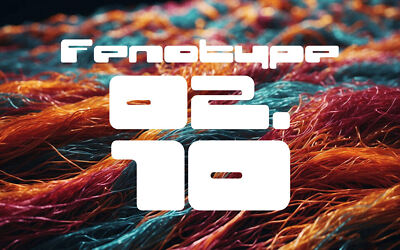
Mametosca 026 is an experimental display font. It’s available only in uppercase, also has numbers, symbols and multilingual accents.
Mametosca 026 font is suitable for logos, posters, headlines, banners and other typographic projects.